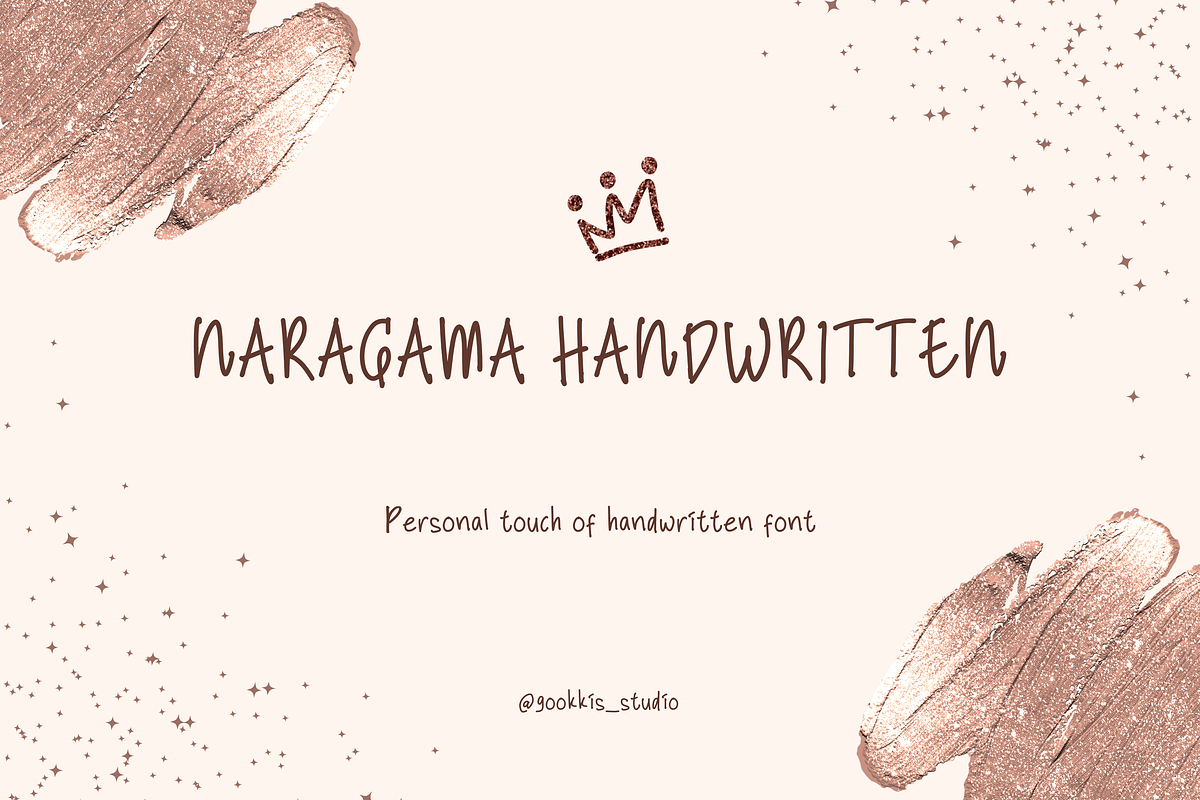
Naragama Handwritten Free Download
Naragama Handwritten Font Free Download
Naragama Handwritten Font Free Download is a charming and expressive script typeface that captures the beauty of natural handwriting. With its fluid strokes and organic feel, Naragama is perfect for wedding invitations, personal branding, lifestyle blogs, greeting cards, and handwritten-style logos.
The font’s casual elegance makes it ideal for projects that need a personal, heartfelt touch while still maintaining polish and legibility. Its smooth curves and subtle details bring warmth and personality to both print and digital designs.